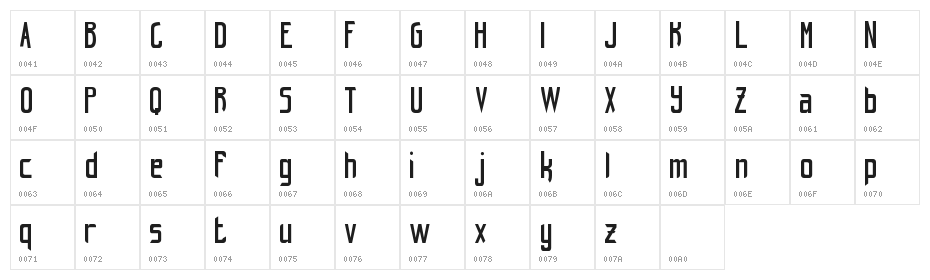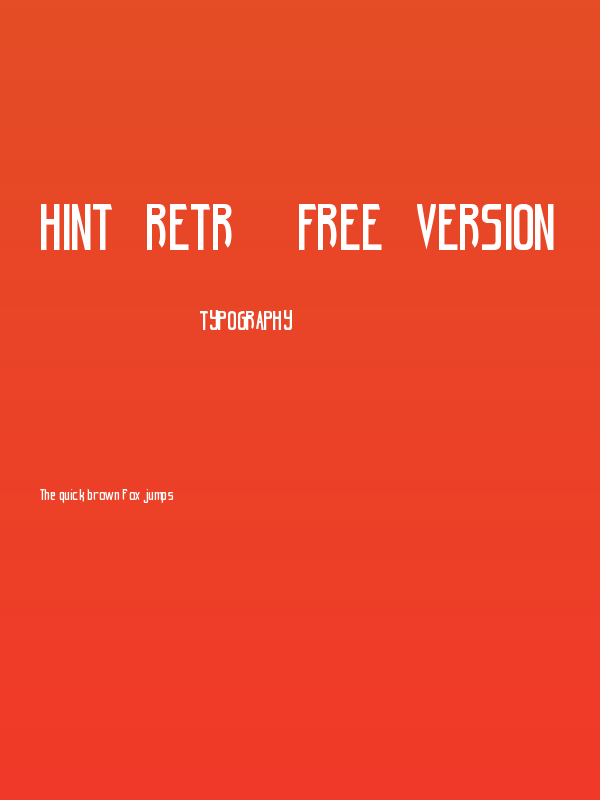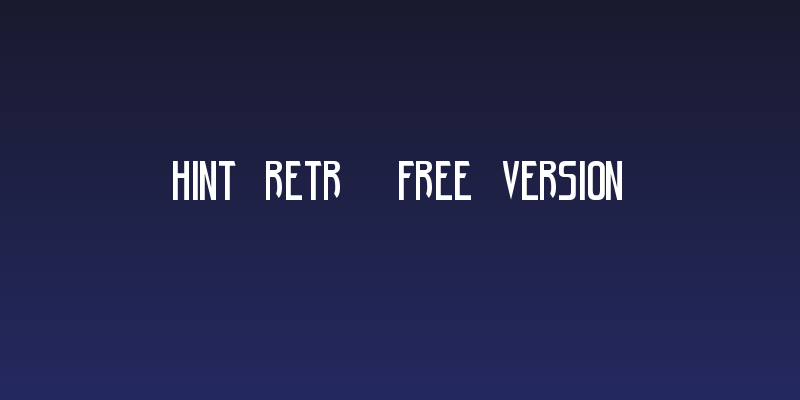
hint-retrò_free-version Font
hint-retrò_free-version Description
This font features a bold and geometric design with a modern flair. The characters are constructed with sharp angles and straight lines, giving it a futuristic and tech-inspired appearance. The uppercase letters are tall and narrow, while the lowercase letters maintain a consistent height, creating a uniform look. The numbers and special characters follow the same design principles, ensuring cohesion across all elements. The font's unique style makes it stand out, with a distinct personality that is both striking and memorable.
| Proposed Projects | Ideal for technology branding, futuristic posters, video game titles, and sci-fi themed projects. |